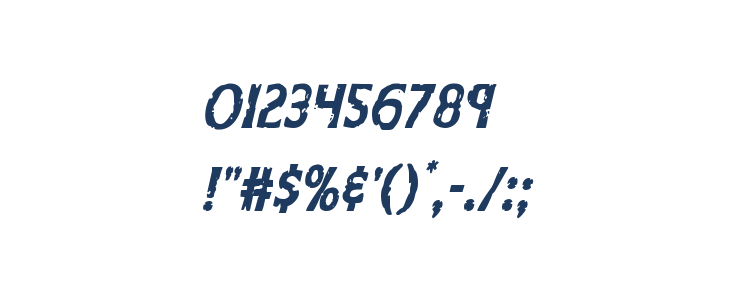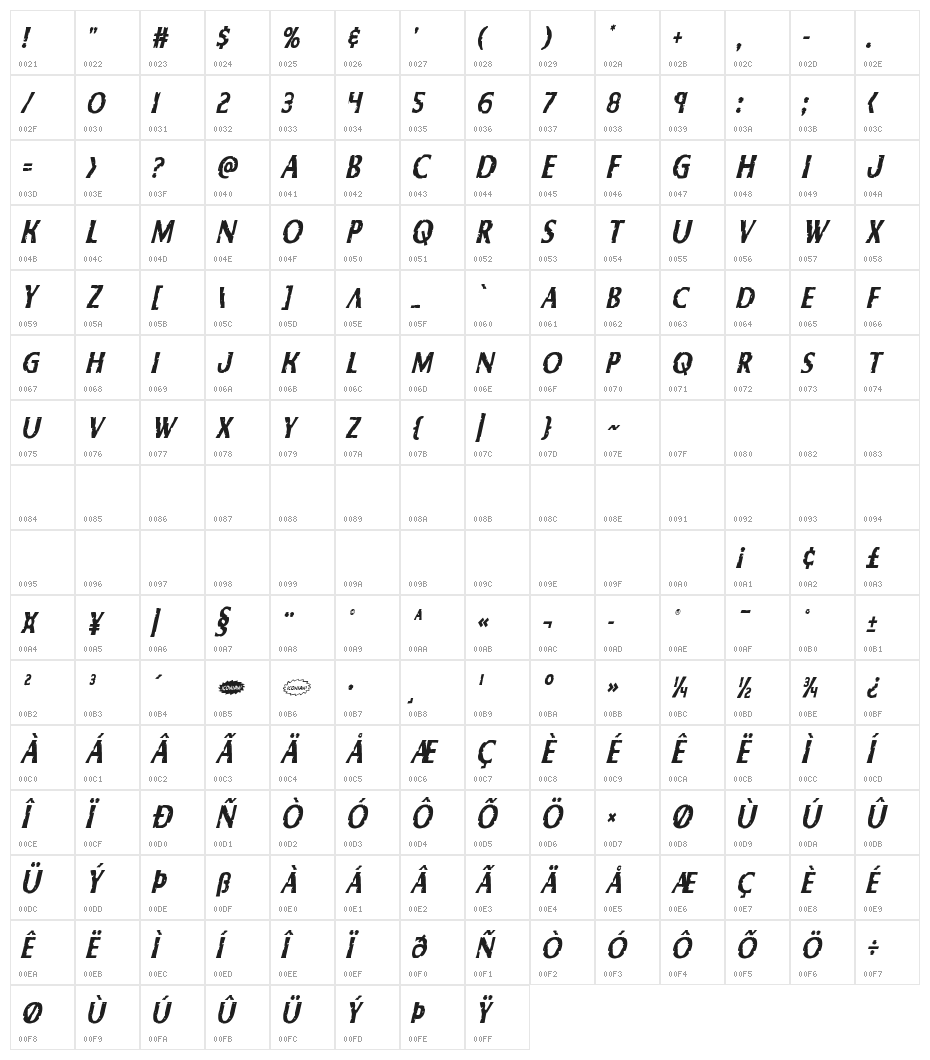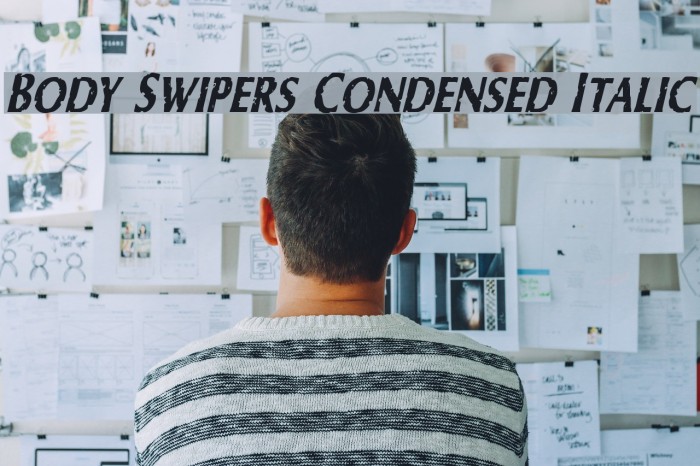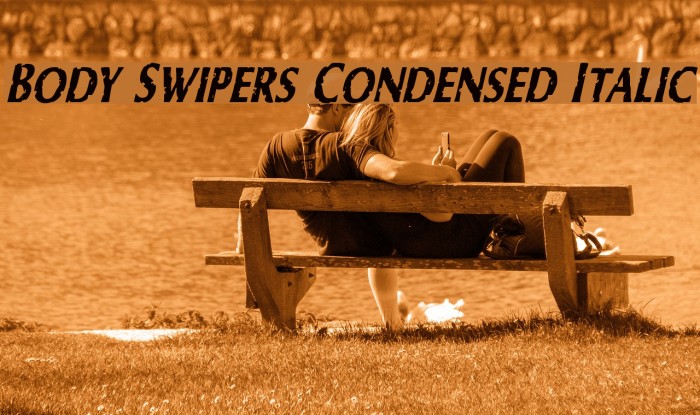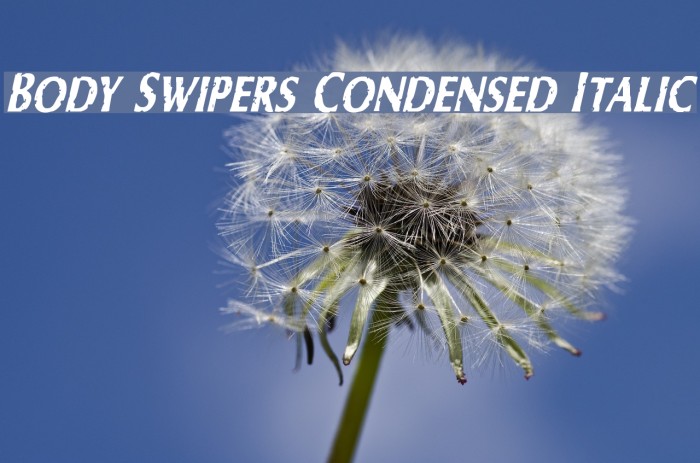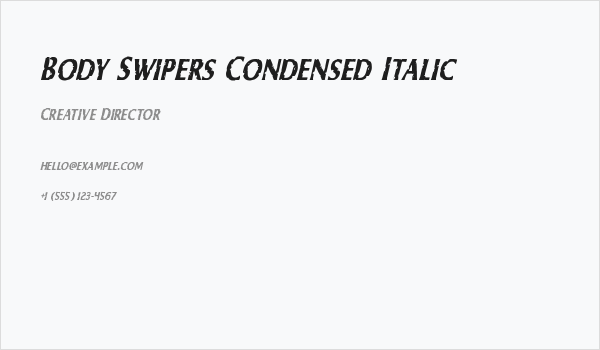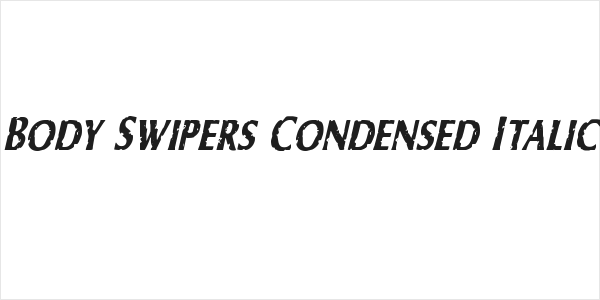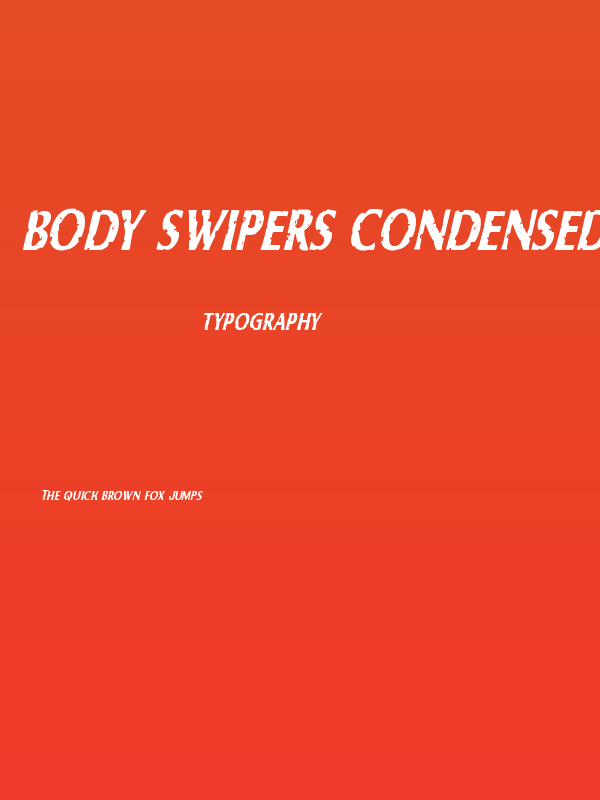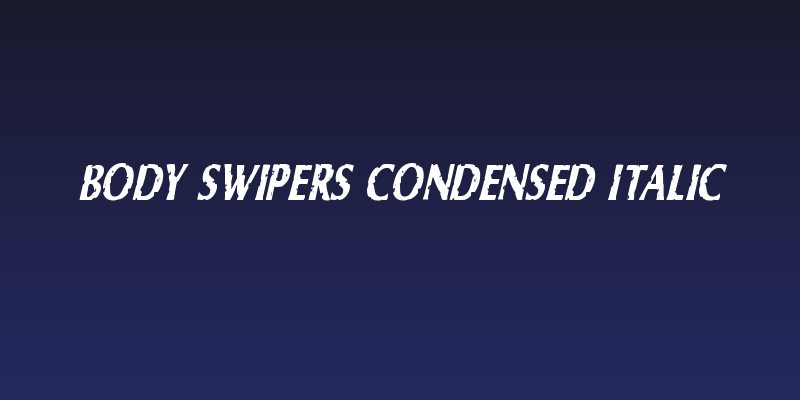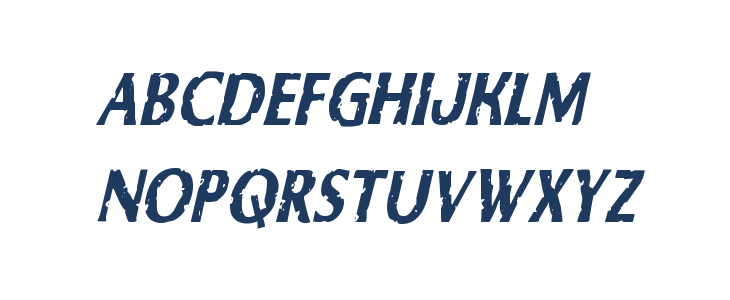
Body Swipers Condensed Italic Font
Body Swipers Condensed Italic Description
This font features a bold and dynamic style with a distressed, grunge-like texture. The characters are italicized, giving them a forward-leaning appearance that adds a sense of motion and urgency. The condensed width allows for efficient use of space, making it suitable for impactful headlines or titles. The irregular edges and rough texture contribute to a raw, edgy aesthetic, perfect for projects that require a bold statement. The font includes a full set of uppercase and lowercase letters, numbers, and a variety of special characters, ensuring versatility in design applications.
| Overall Style | Modern, Edgy |
| Proposed Projects | Ideal for posters, album covers, edgy branding, and streetwear designs. |